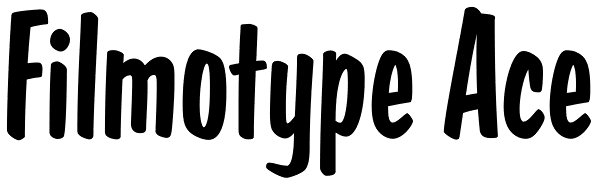
Filmotype Ace
At it's customers request, Filmotype developed a narrower version of its Filmotype Arthur font in the early 1950s as an extra-condensed upright bold sho-card brush script for very narrow setting applications where economy and style were paramount to...